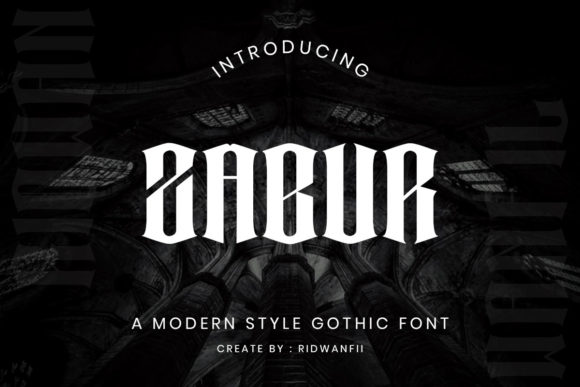
Prepare to delve into the world of Zabur, a captivating creation inspired by the enigmatic world of Gothic art. With its bold and distinctive characters, Zabur is a testament to the allure of the dark and mysterious.
Let the power of Zabur font cast a spell on your designs, conjuring an atmosphere of intrigue and sophistication. Its striking presence commands attention, adding an air of exclusivity and flair to your creations.
Embrace the allure of Zabur's mystique and transport your audience to a world of enchantment, where darkness and beauty intertwine.
- Striking and distinctive blackletter typeface.
- Perfect for conveying a sense of mystery and intrigue.
- Ideal for projects seeking a unique and captivating aesthetic.
- Highly readable and versatile in various applications.
Unleash your creativity with Zabur font, a dark and alluring masterpiece that will leave a lasting impression on your audience.